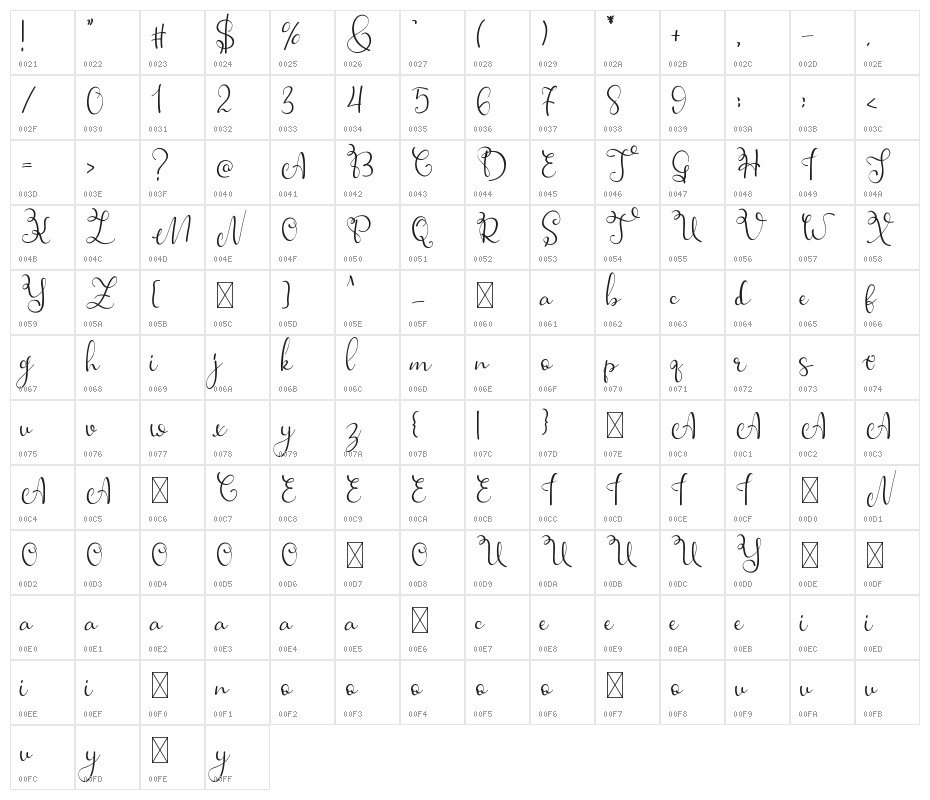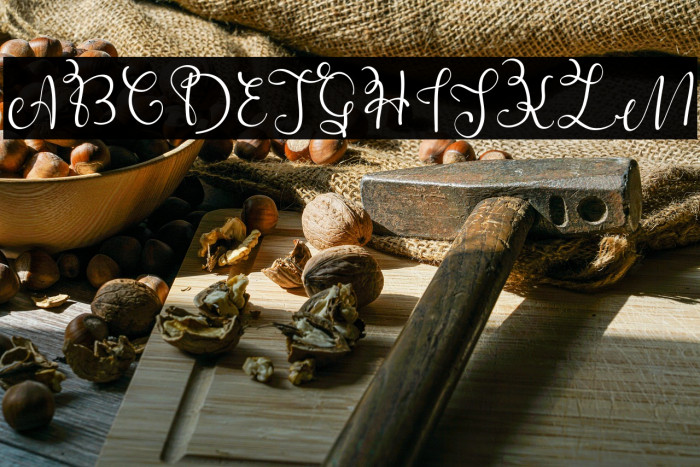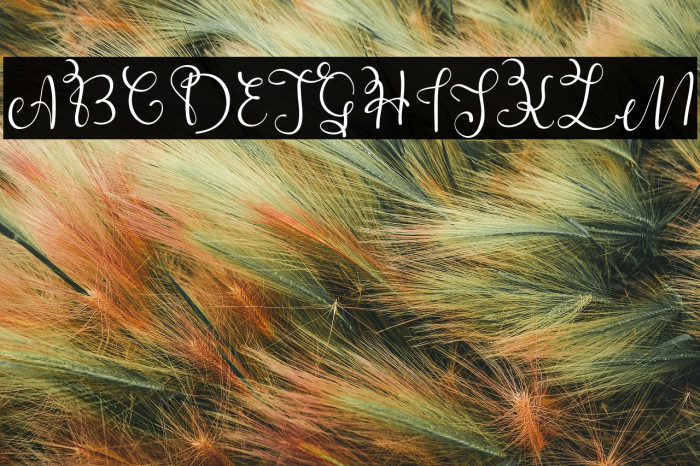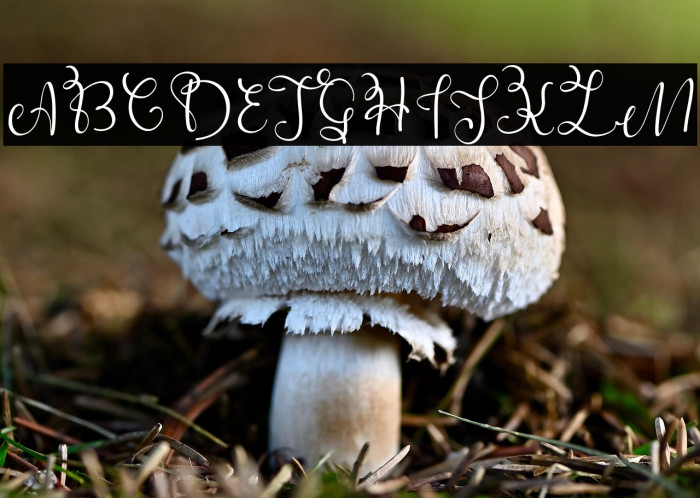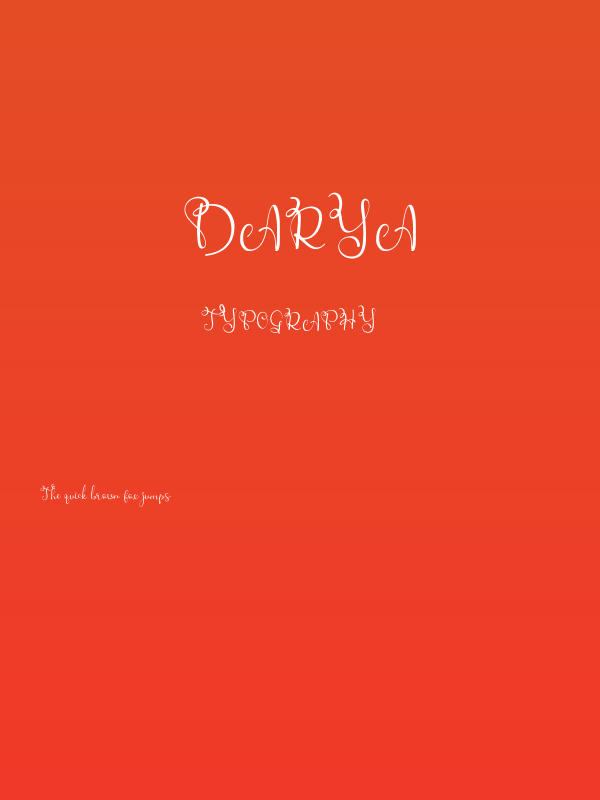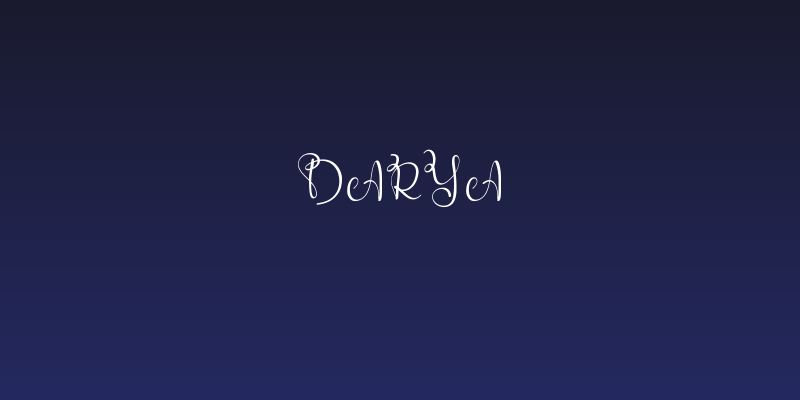
Darya Font
Darya Description
This font features an elegant and flowing script style, characterized by its intricate loops and swirls. The uppercase letters are particularly ornate, with each character exhibiting unique flourishes that add a touch of sophistication. The lowercase letters maintain a consistent fluidity, enhancing readability while preserving the decorative nature of the font. Numbers and special characters are designed to complement the overall aesthetic, making them suitable for a variety of creative applications. The font's delicate strokes and high contrast between thick and thin lines contribute to its refined appearance, making it ideal for projects that require a touch of elegance and style.
| Overall Style | Elegant, Decorative |
| Use Case | Logos, Invitations, Decorative text |
| Proposed Projects | Wedding invitations, greeting cards, branding, and luxury product packaging. |